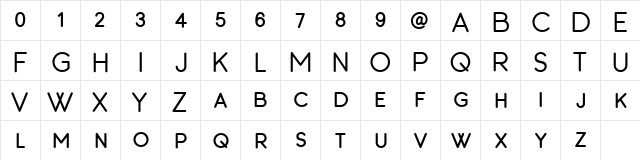
Barton Regular
Design Context for Barton Typeface
Barton takes a measured approach to typography — its balanced proportions and neutral character make it a reliable workhorse for both digital and print work.